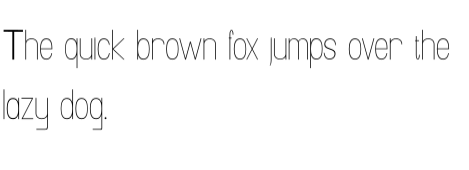
Varabelle Font: A Geometric Sans-Serif Family Typeface for Modern Designs
The world of typography is vast and diverse, with numerous font styles and families to choose from. Among these, the Varabelle font stands out as a geometric sans-serif family typeface that has gained popularity for its simplicity, elegance, and versatility. Available in nine thicknesses, Varabelle is a simple and elegant sans font family that is particularly suitable for headlines, titles, brands, posters, packaging, titles, logos, and more.
Key Features of Varabelle Font
- Geometric Sans-Serif Design: Varabelle boasts a geometric sans-serif design, which gives it a clean and modern look. This design makes it perfect for projects that require a fresh and contemporary feel.
- Nine Thicknesses: The font family is available in nine different thicknesses, offering flexibility and a wide range of applications. Whether you need a bold statement or a subtle caption, Varabelle has got you covered.
- Simple and Elegant: The simplicity and elegance of Varabelle make it an excellent choice for designs that require a touch of sophistication. Its uncomplicated design ensures that it pairs well with various other design elements.
Ideas for Using Varabelle Font
Varabelle’s versatility makes it suitable for a wide range of design projects. Here are some ideas on how to use this beautiful font:
- Headlines and Titles: The geometric sans-serif design of Varabelle makes it perfect for headlines and titles. It grabs attention and adds a modern touch to any piece of content.
- Branding and Logos: For brands looking for a modern and elegant font to represent their identity, Varabelle is an excellent choice. Its availability in nine thicknesses allows for flexibility in logo design.
- Posters and Packaging: Varabelle’s clean design makes it suitable for posters and packaging. It can be used to convey messages clearly and effectively, making your designs stand out.
- Digital Media: In the digital realm, Varabelle can be used for website headings, social media posts, and digital advertising. Its modern look ensures that your digital content looks fresh and appealing.
Tips for Effective Typography with Varabelle
To make the most out of Varabelle, consider the following typography tips:
- Mix and Match: Don’t be afraid to experiment with different thicknesses of Varabelle to create visual hierarchy and add depth to your designs.
- Pair with Other Fonts: Varabelle pairs well with both serif and script fonts. Experiment with font pairing to find the perfect combination that complements your design.
- Pay Attention to Spacing: Ensure that you pay attention to the spacing between letters and lines. Proper spacing can enhance readability and make your text more engaging.
Finding Inspiration with Varabelle
To get the most out of Varabelle, look for inspiration from various design projects that utilize geometric sans-serif typefaces. Websites like Behance, Dribbble, and design blogs often feature works that use modern fonts like Varabelle. Seeing how other designers incorporate Varabelle into their work can provide valuable insights and spark creativity for your projects.
Varabelle is a versatile and elegant geometric sans-serif font family that can elevate your designs with its modern and clean aesthetic. Available in nine thicknesses, it offers flexibility for various design applications, from headlines and titles to logos and digital media. By understanding its features, experimenting with typography, and adhering to licensing terms, you can effectively incorporate Varabelle into your projects and enjoy the extraordinary beauty it brings.